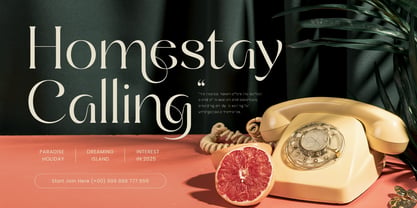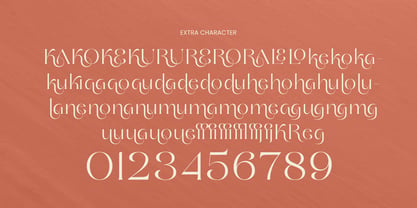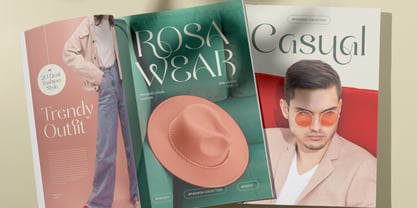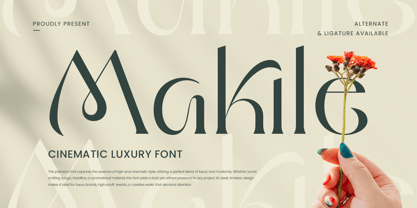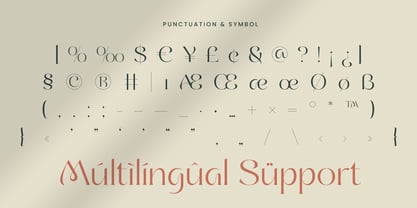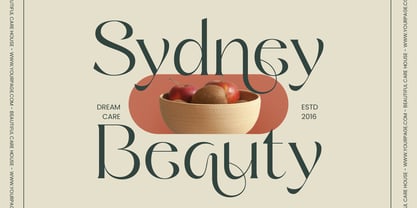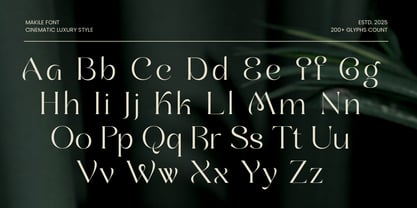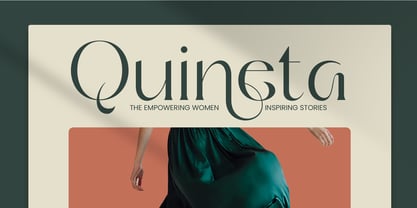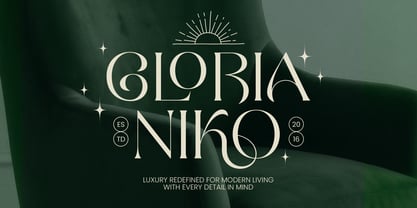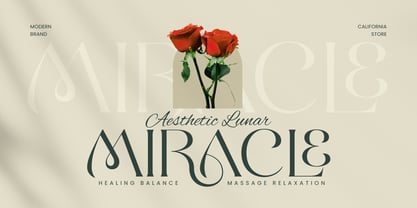
Makile - Cinematic Luxury Font
Makile is a cinematic luxury font crafted to deliver elegance, prestige, and modern refinement. Its sleek curves and high-contrast strokes are ideal for fashion branding, luxury packaging, and cinematic title sequences.
Designed for those who appreciate timeless sophistication, Makile draws inspiration from high-fashion magazines and film posters. It brings a graceful rhythm to your design with stylish alternates and polished details that elevate every layout.
Whether you're working on branding, print, or screen, Makile offers the ideal balance of bold impact and upscale beauty.
Makile – Cinematic Luxury Font Features
Elegant and refined characters
Great for branding, titles, and editorial use
Punctuation, numbers, and symbols included
Uppercase and lowercase letters
OpenType features for advanced styling
Multilingual support for Afrikaans, Albanian, Asu, Basque, Bemba, Bena, Breton, Chiga, Cornish, Dutch, English, Estonian, Filipino, Finnish, Friulian, Galician, German, Gusii, Indonesian, Irish, Italian, Kabuverdianu, Kalenjin, Kinyarwanda, Luo, Luxembourgish, Luyia, Machame, Makhuwa-Meetto, Makonde, Malagasy, Manx, Morisyen, North Ndebele, Nyankole, Oromo, Portuguese, Quechua, Romansh, Rombo, Rundi, Rwa, Samburu, Sango, Sangu, Scottish Gaelic, Sena, Shambala, Shona, Soga, Somali, Spanish, Swahili, Swedish, Swiss, and more.